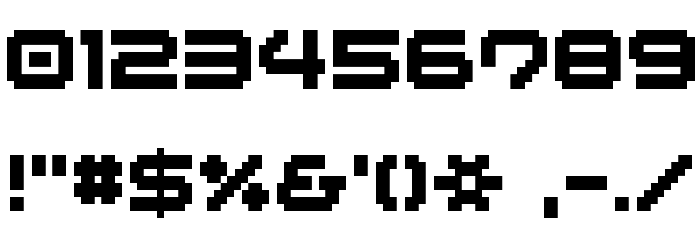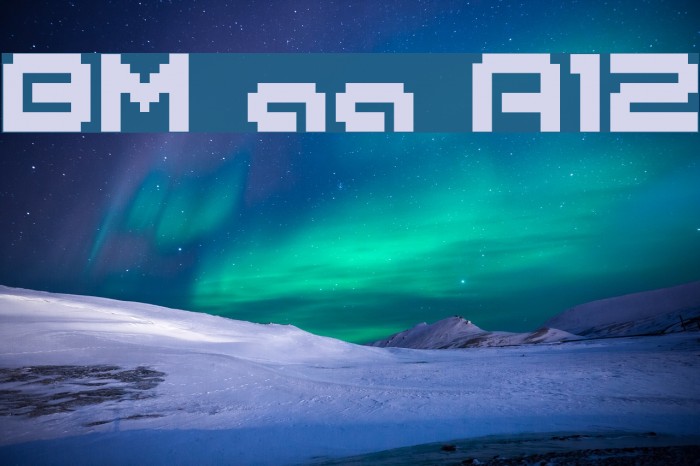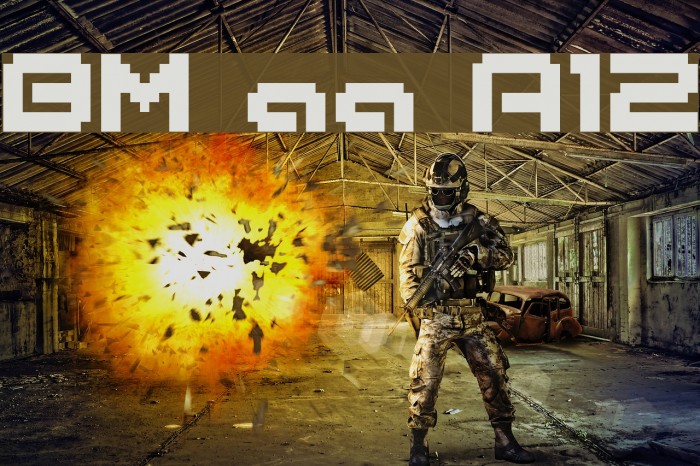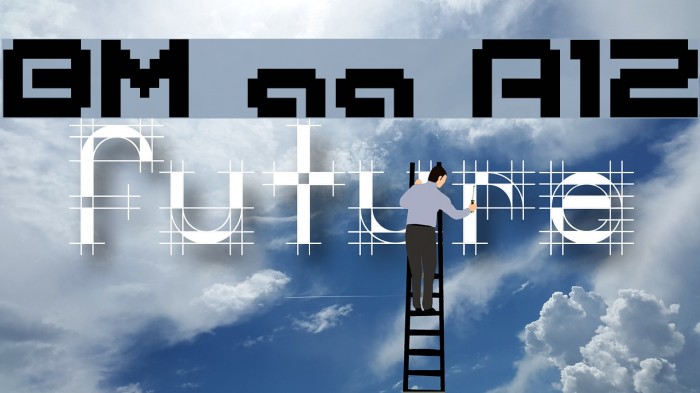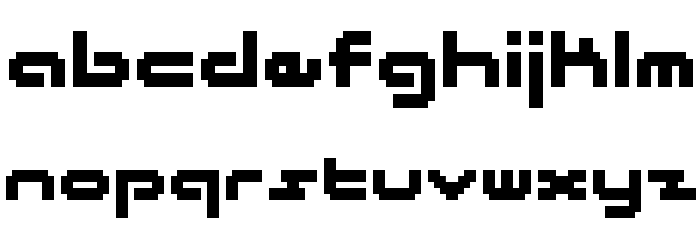
BM japan A12 Font
BM japan A12 Description
This font features a bold, pixelated design reminiscent of early digital displays and retro video games. Each character is constructed with a blocky, geometric style, giving it a distinctly modern and tech-inspired appearance. The uppercase and lowercase letters maintain a consistent height, contributing to a uniform and structured look. Numbers and special characters follow the same pixelated theme, ensuring a cohesive visual experience. The font's strong, angular lines and lack of curves emphasize its digital aesthetic, making it ideal for projects that require a futuristic or nostalgic touch.